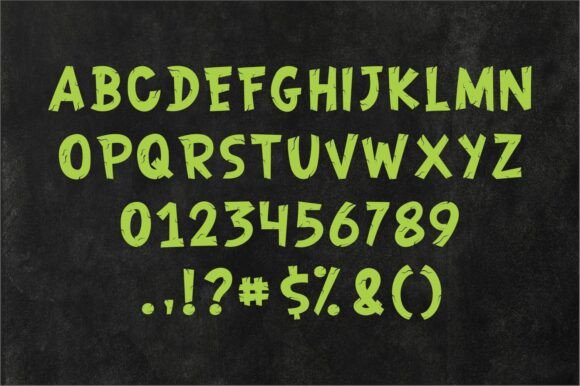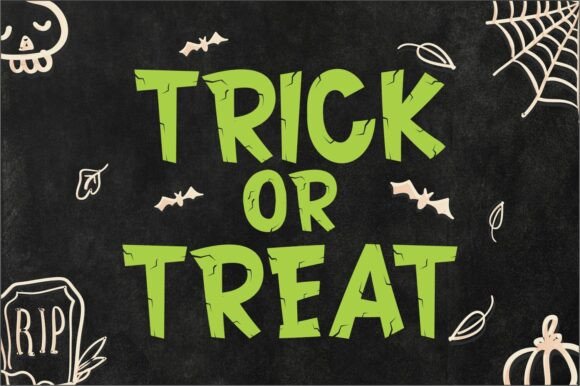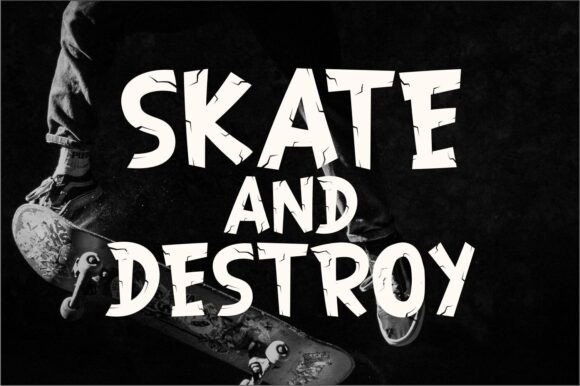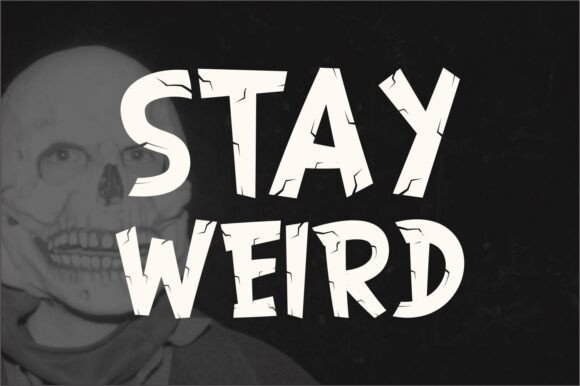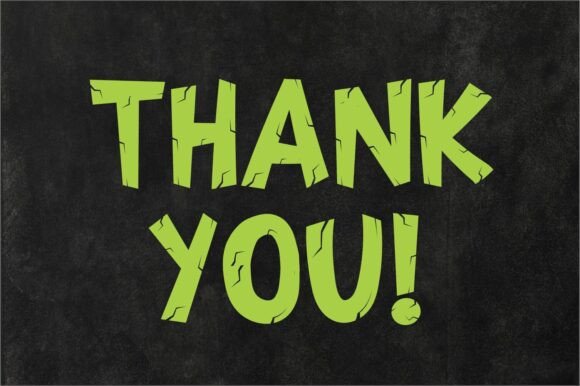
Crack Zone Font: Add a Fun and Edgy Touch to Your Designs
Are you looking for a font that can add a bold, strong, and fun feel to your designs? Look no further than Crack Zone Font! This cartoon font with a crack effect is perfect for designers and crafters who want to create eye-catching and unique designs. In this article, we’ll explore the features and benefits of Crack Zone Font and how you can use it to take your designs to the next level.
What is Crack Zone Font?
Crack Zone Font is a cartoon font with a crack effect that gives it a bold and strong appearance. The font has a fun and edgy feel to it, making it perfect for designs that require a playful touch. The crack effect adds a unique texture to the font, making it stand out from other fonts. Whether you’re creating a cartoon title, logo, watermark, or quote, Crack Zone Font is an excellent choice.
Features of Crack Zone Font
- Bold and Strong: Crack Zone Font is a bold and strong font that can add a fun and edgy touch to your designs.
- Cartoon Style: The font has a cartoon style that makes it perfect for cartoon titles, logos, and characters.
- Crack Effect: The crack effect adds a unique texture to the font, making it stand out from other fonts.
- Versatile: Crack Zone Font can be used for a variety of design projects, including logos, watermarks, quotes, clothing, and more.
Benefits of Using Crack Zone Font
There are several benefits to using Crack Zone Font in your designs. Here are a few:
- Adds a Fun and Edgy Touch: Crack Zone Font can add a fun and edgy touch to your designs, making them more engaging and attention-grabbing.
- Perfect for Cartoon and Comic Designs: The font’s cartoon style and crack effect make it perfect for cartoon and comic designs.
- Increases Readability: The bold and strong appearance of Crack Zone Font makes it easy to read, even at small sizes.
- Unique and Creative: The crack effect gives Crack Zone Font a unique and creative look that can help your designs stand out.
How to Use Crack Zone Font
Crack Zone Font is easy to use and can be incorporated into a variety of design projects. Here are a few ideas:
- Cartoon Titles: Use Crack Zone Font to create bold and eye-catching cartoon titles.
- Logos: The font’s bold and strong appearance makes it perfect for logos that need to make a statement.
- Watermarks: Use Crack Zone Font to create unique and eye-catching watermarks.
- Quotes: The font’s fun and edgy feel makes it perfect for quotes that need to grab attention.
- Clothing: Crack Zone Font can be used to create bold and eye-catching designs for clothing and accessories.
Here are a few tips and tricks to help you get the most out of Crack Zone Font:
- Experiment with Colors: The crack effect in Crack Zone Font looks great with bold and bright colors.
- Use it with Other Fonts: Crack Zone Font can be paired with other fonts to create a unique and creative look.
- Pay Attention to Size: Make sure to adjust the size of Crack Zone Font according to your design project.
| Font Name | Crack Zone Font |
| Author | memetxsaputra |